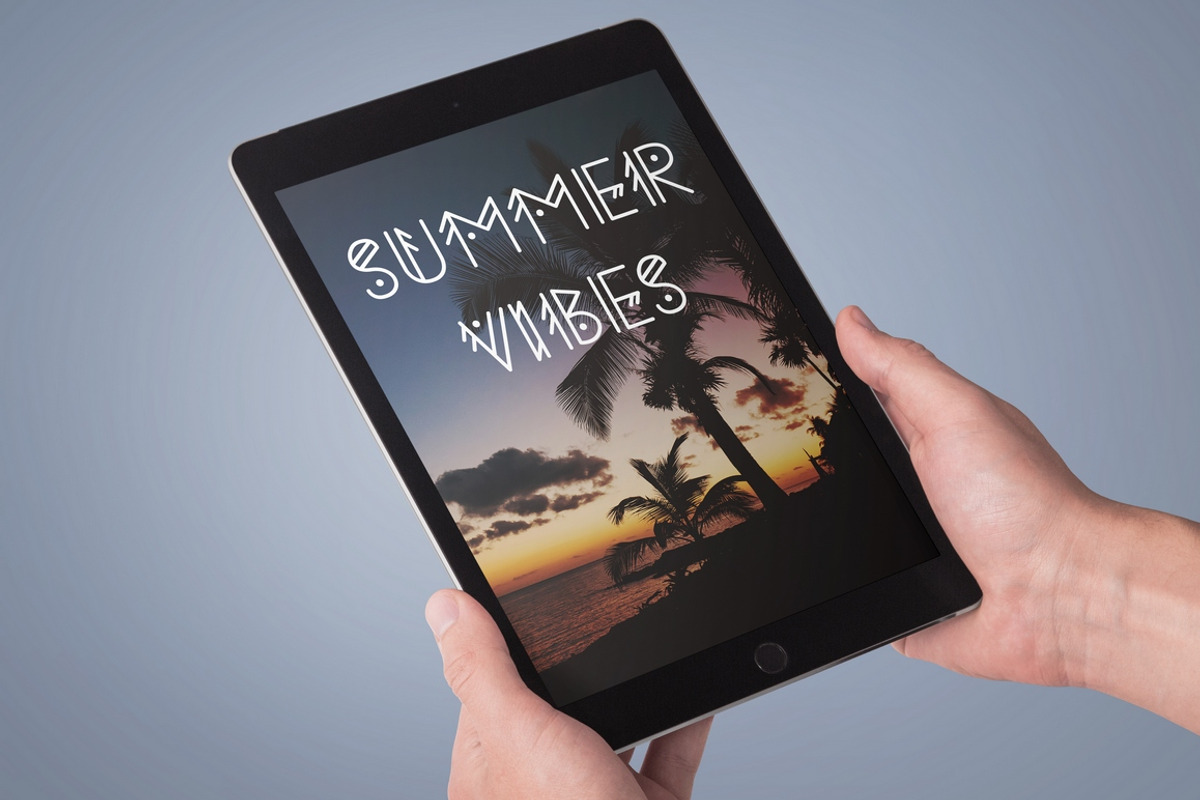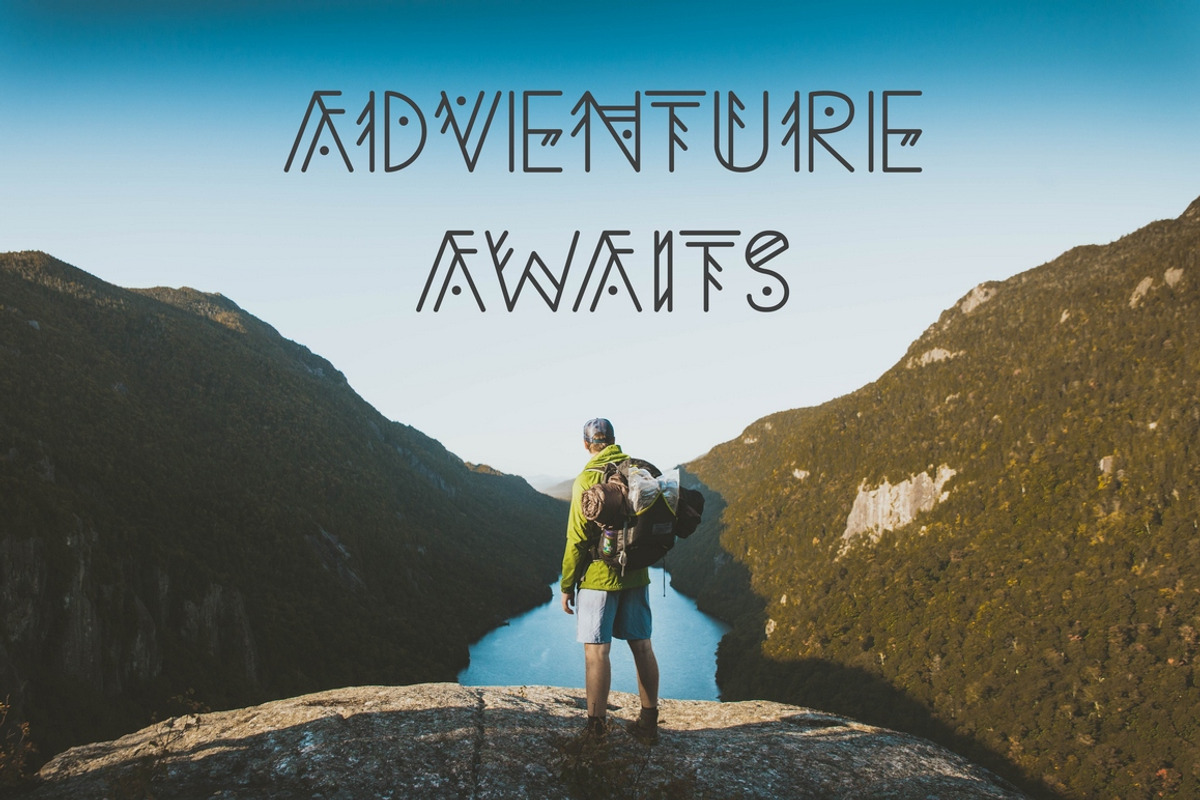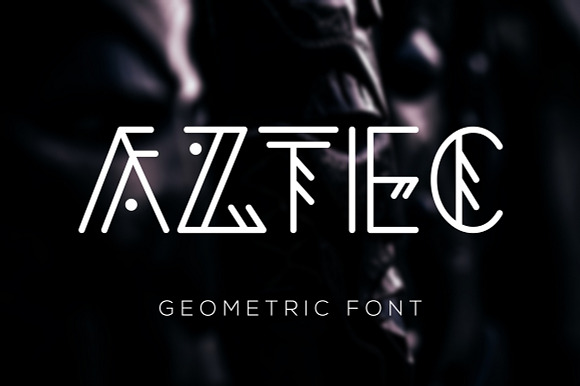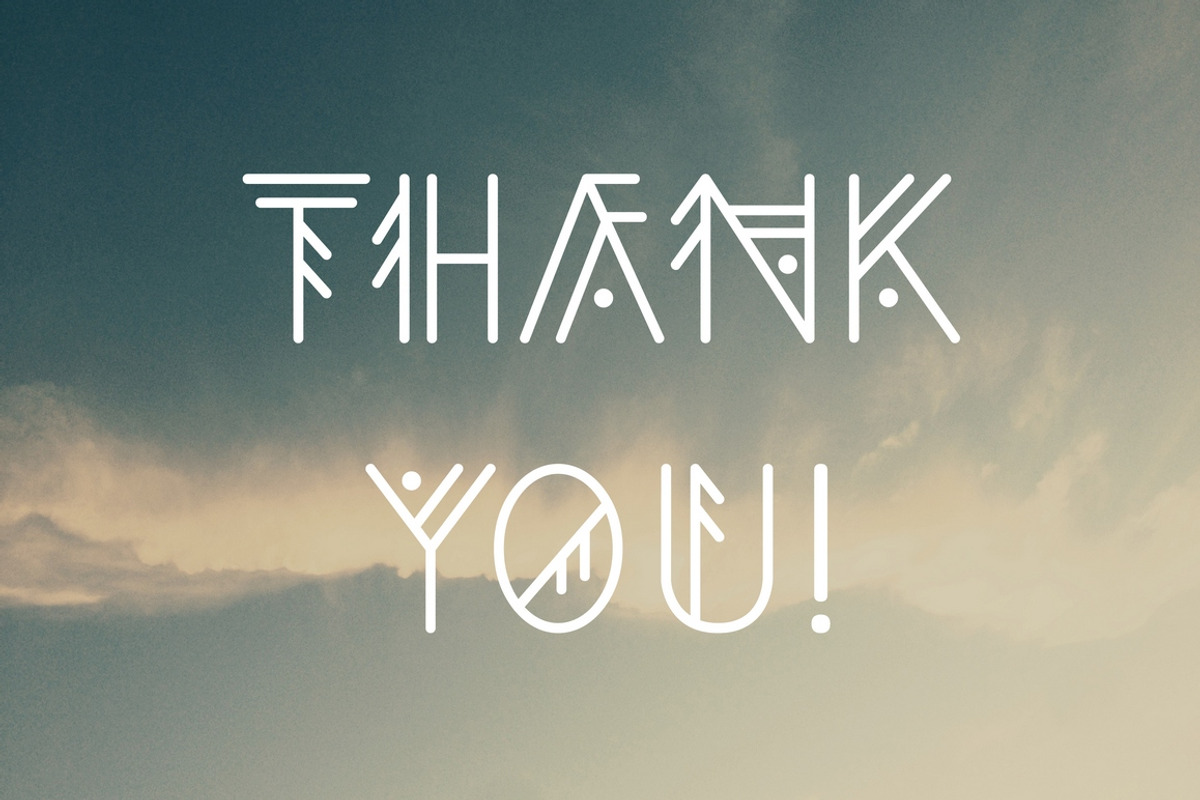
Aztec Geometric Font
Hey everyone! I'm glad to introduce you new decorative Aztec Geometric font! It's perfect for branding, logos, headlines and hipster T-shirt prints.
- This font includes CAPS only, numbers and punctuations (please look at preview to see all symbols).
Aztec Geometric Font by Katrinelly fits naturally into Branding, posters, packaging, typography.